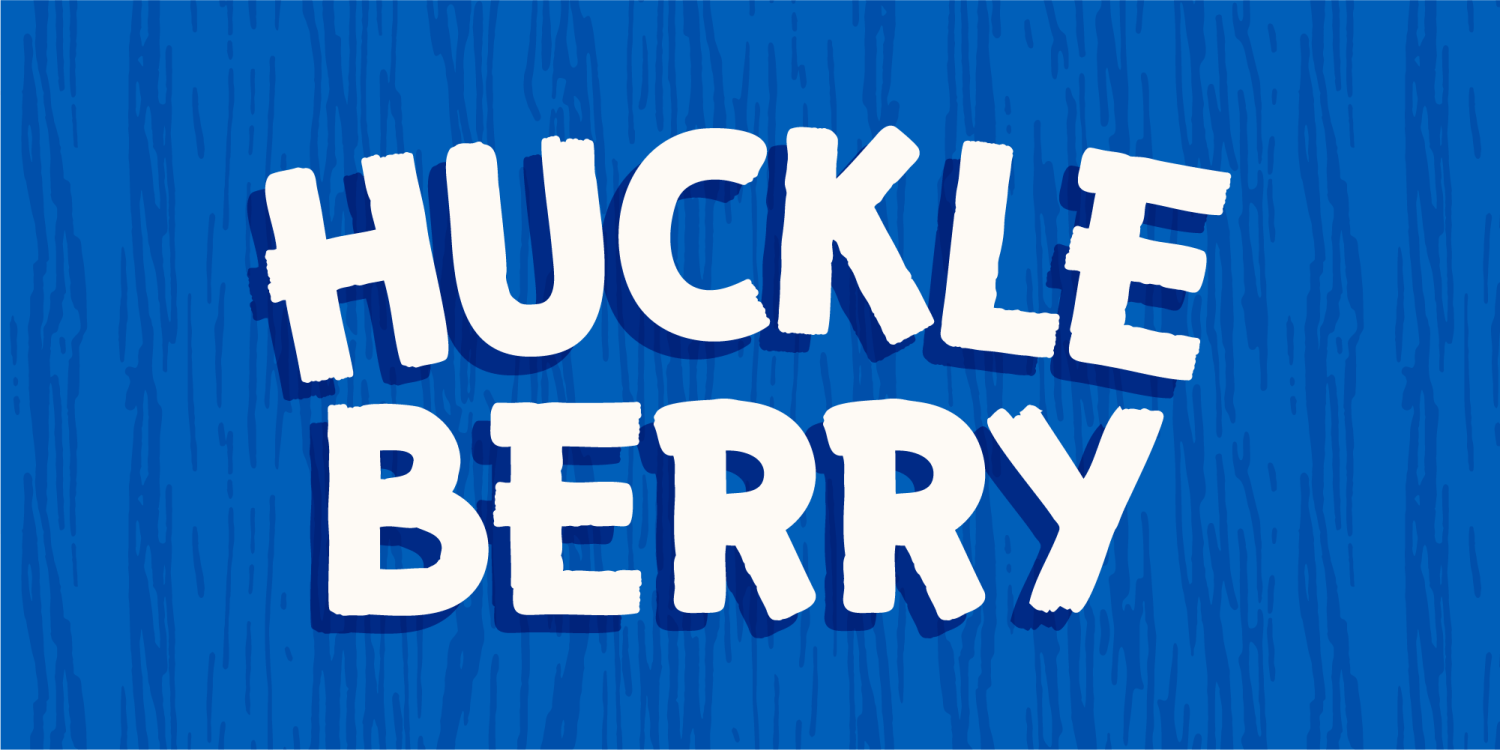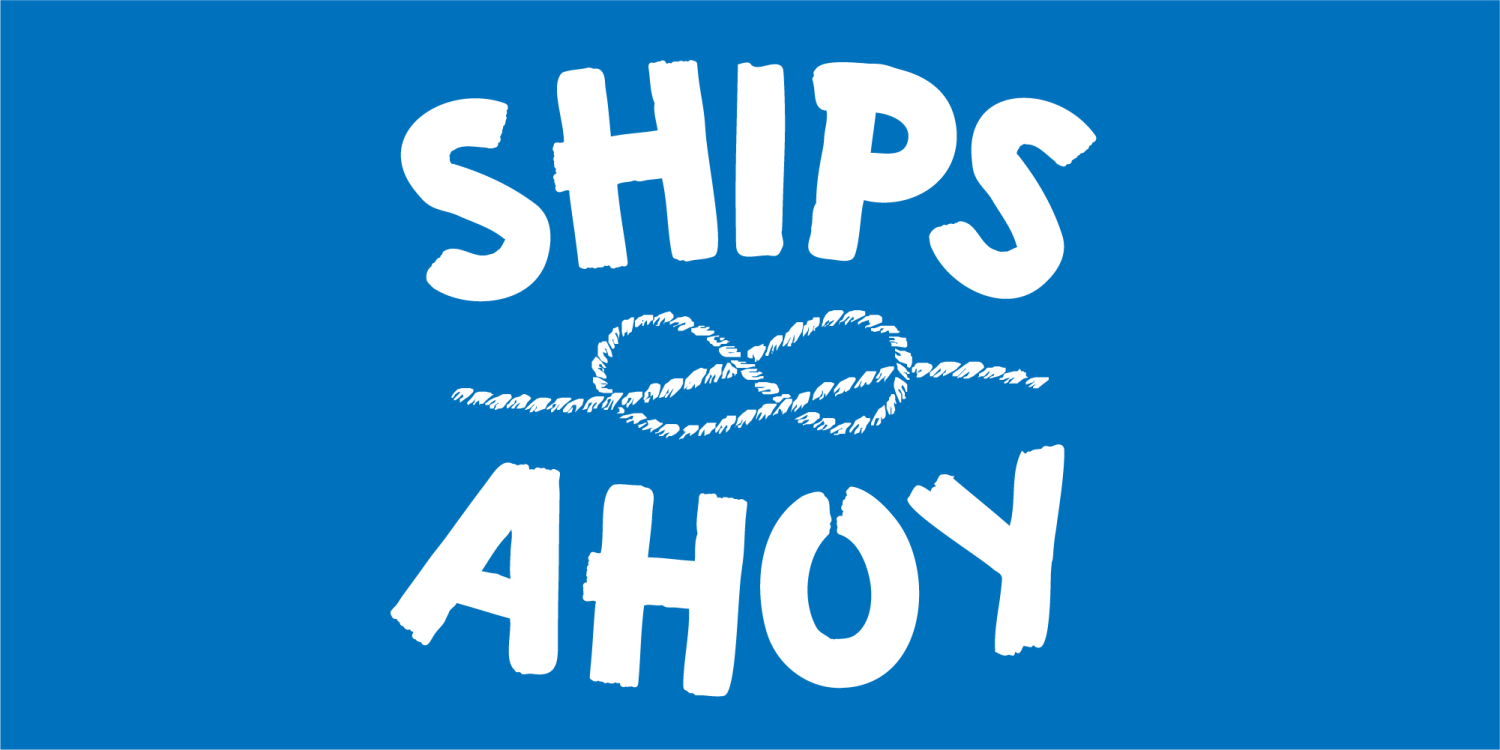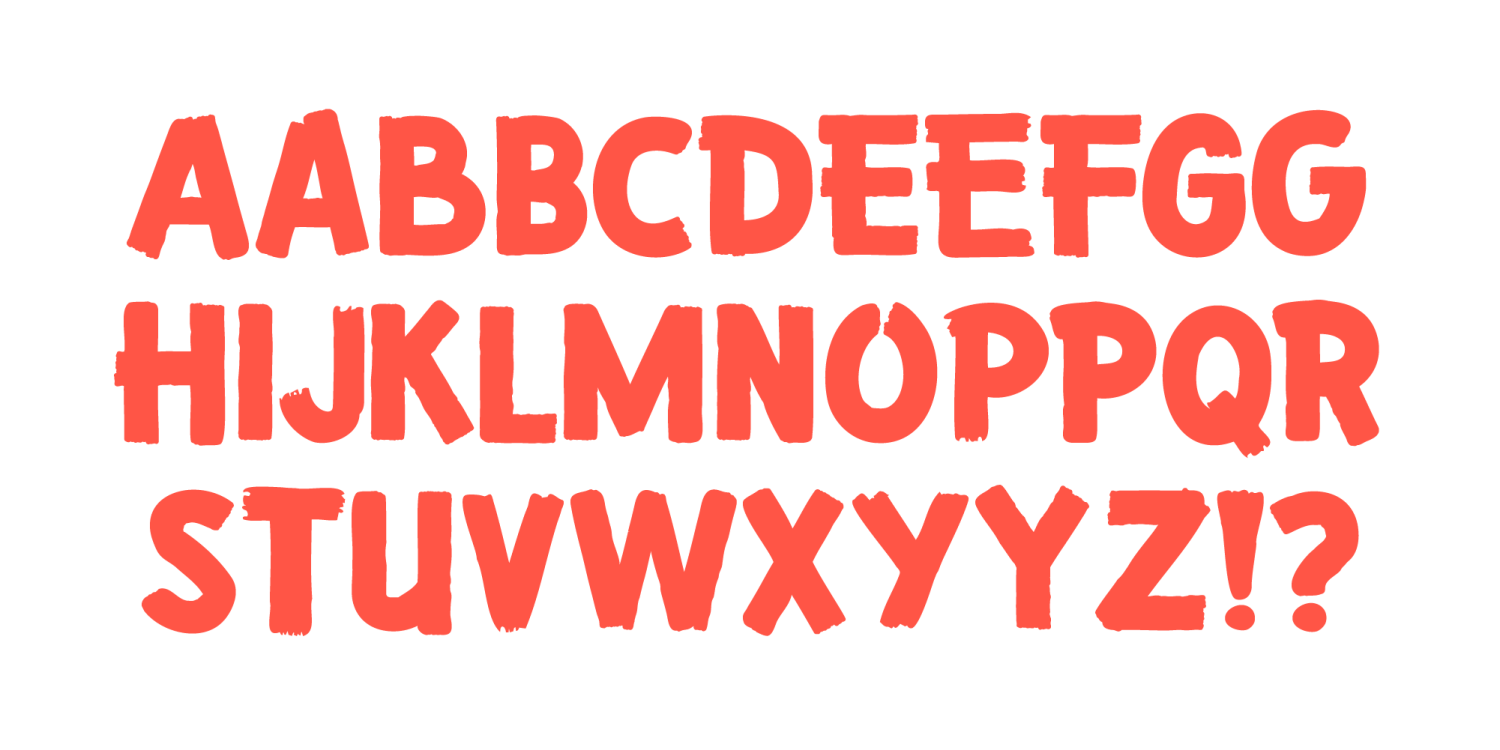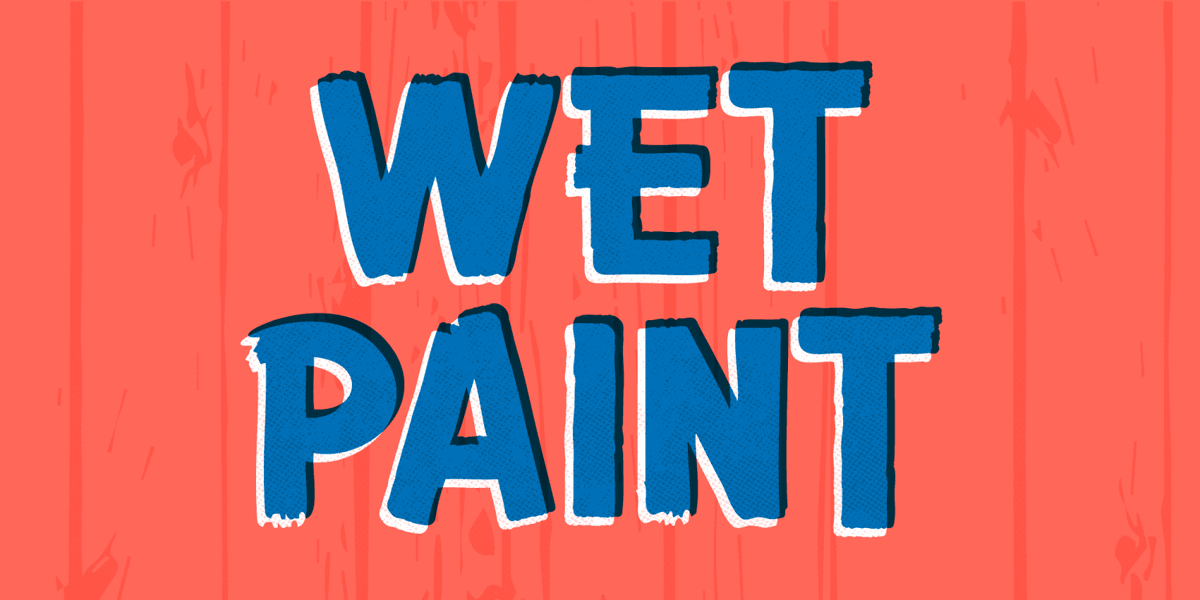
Take a journey down the creative river with this classic font—it's like Huckleberry Finn grabbed a paintbrush and left his mark on every letter. Get ready for a font that's as adventurous and timeless as a Mississippi raft ride!